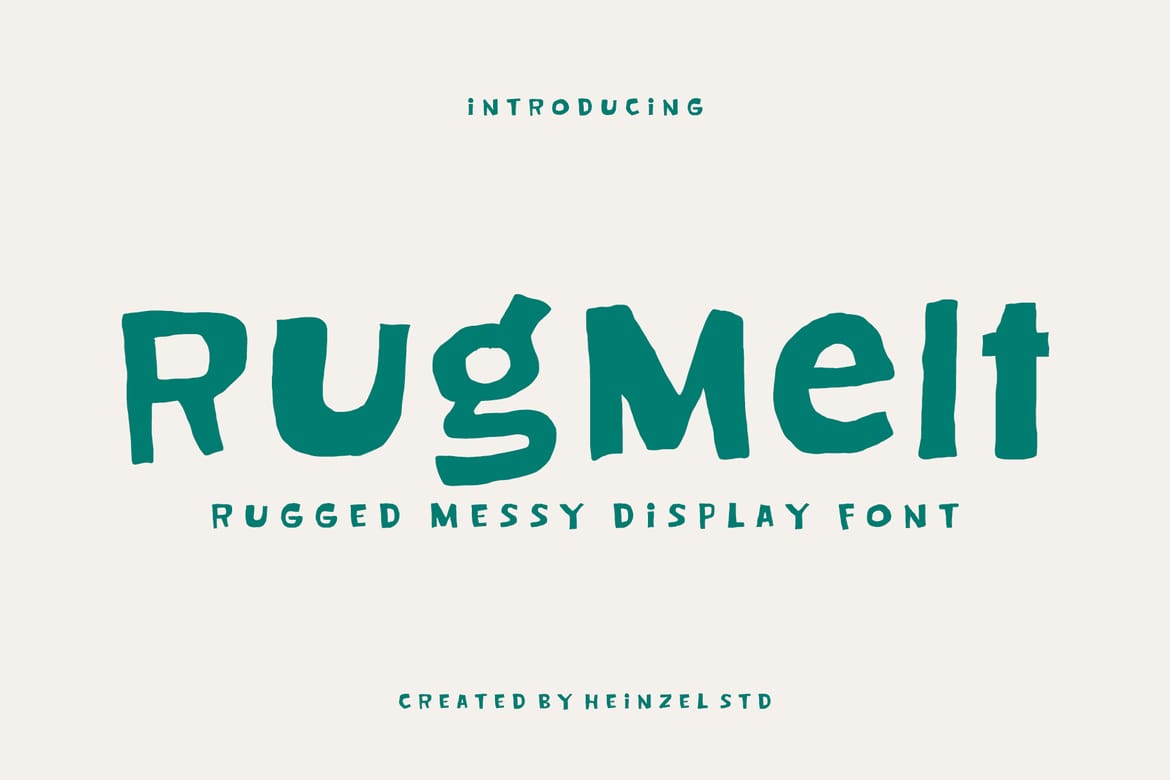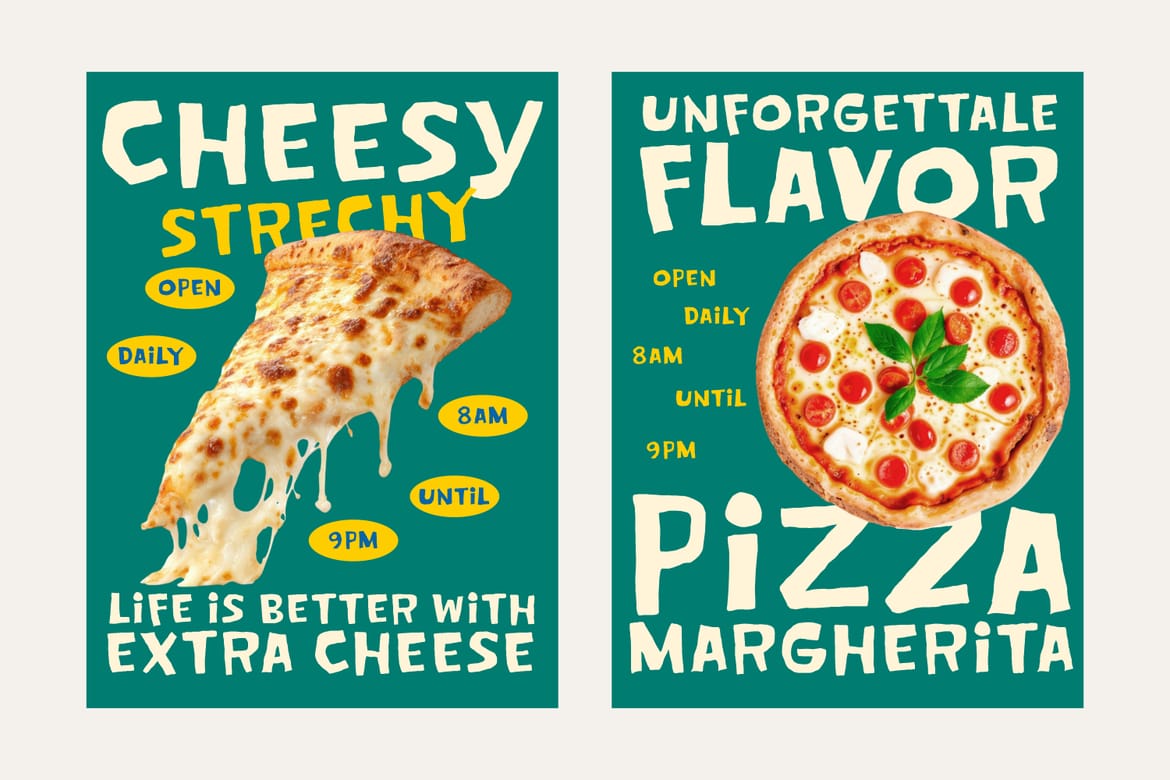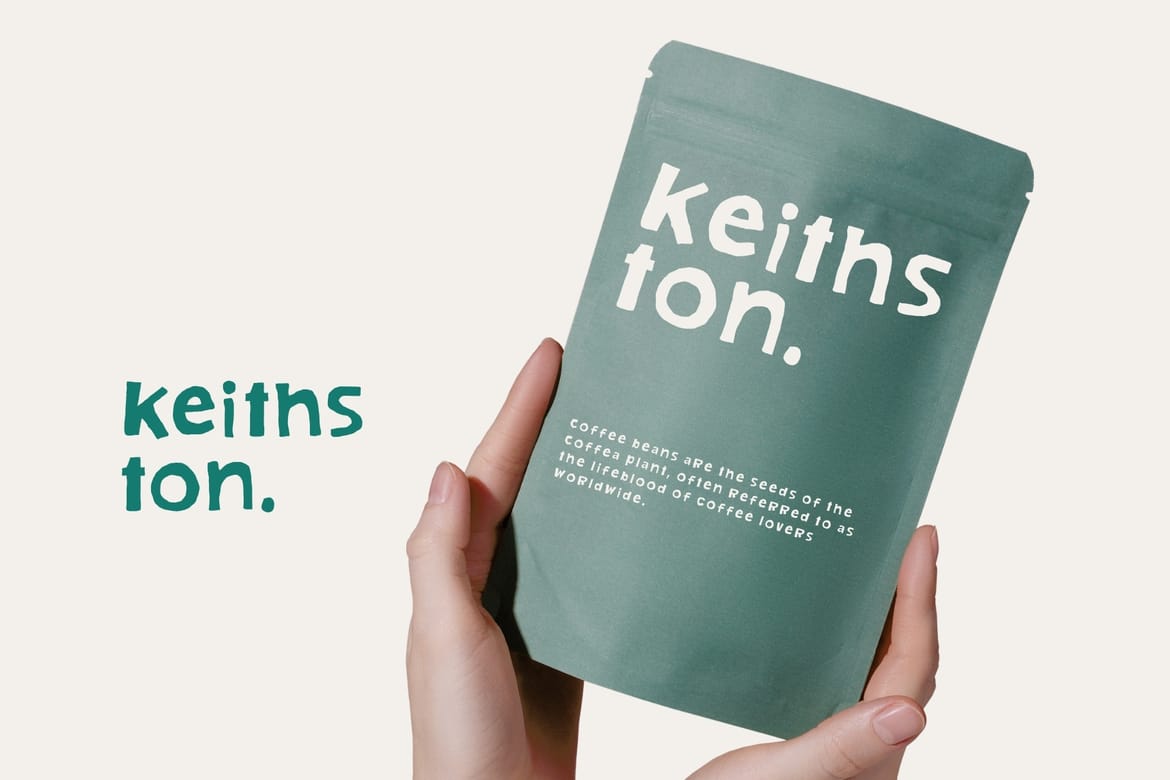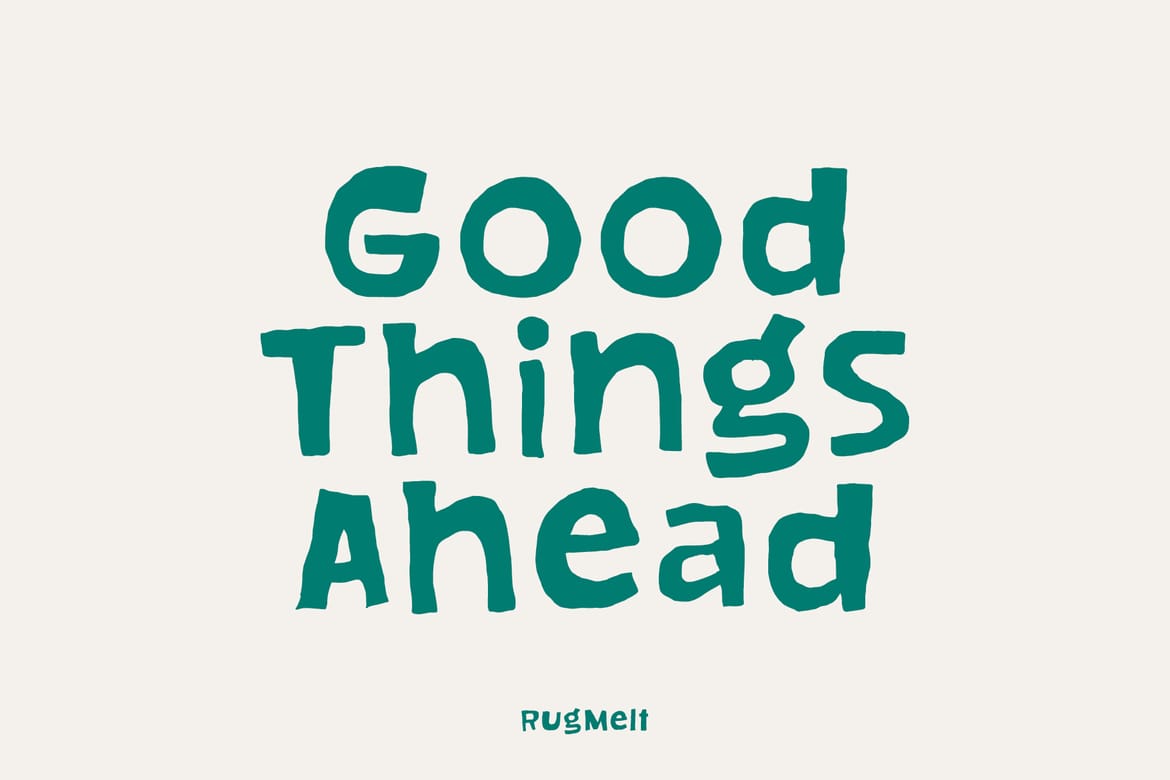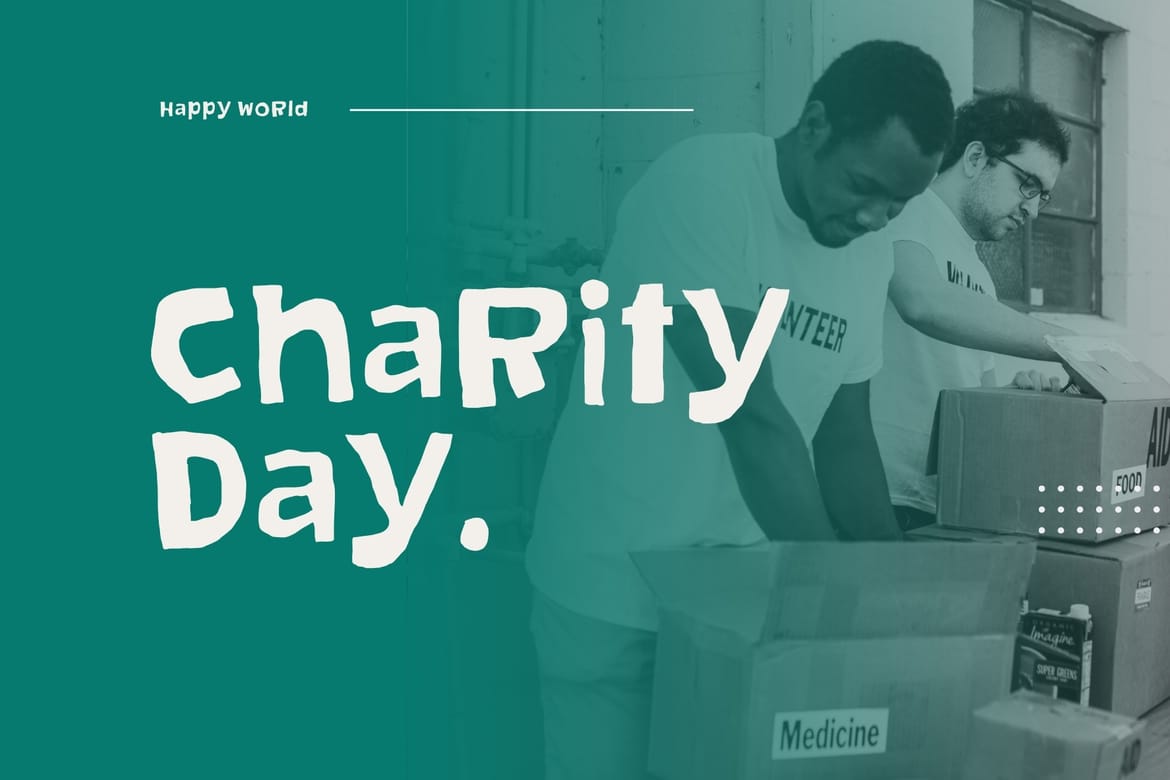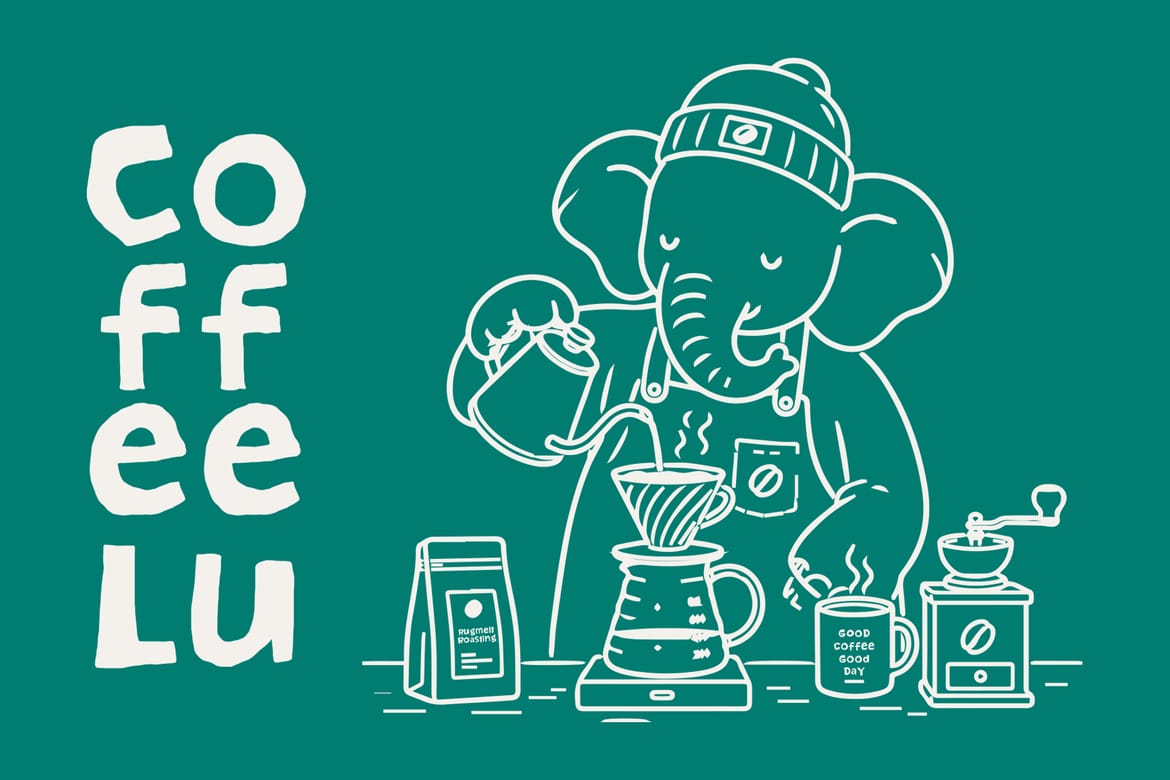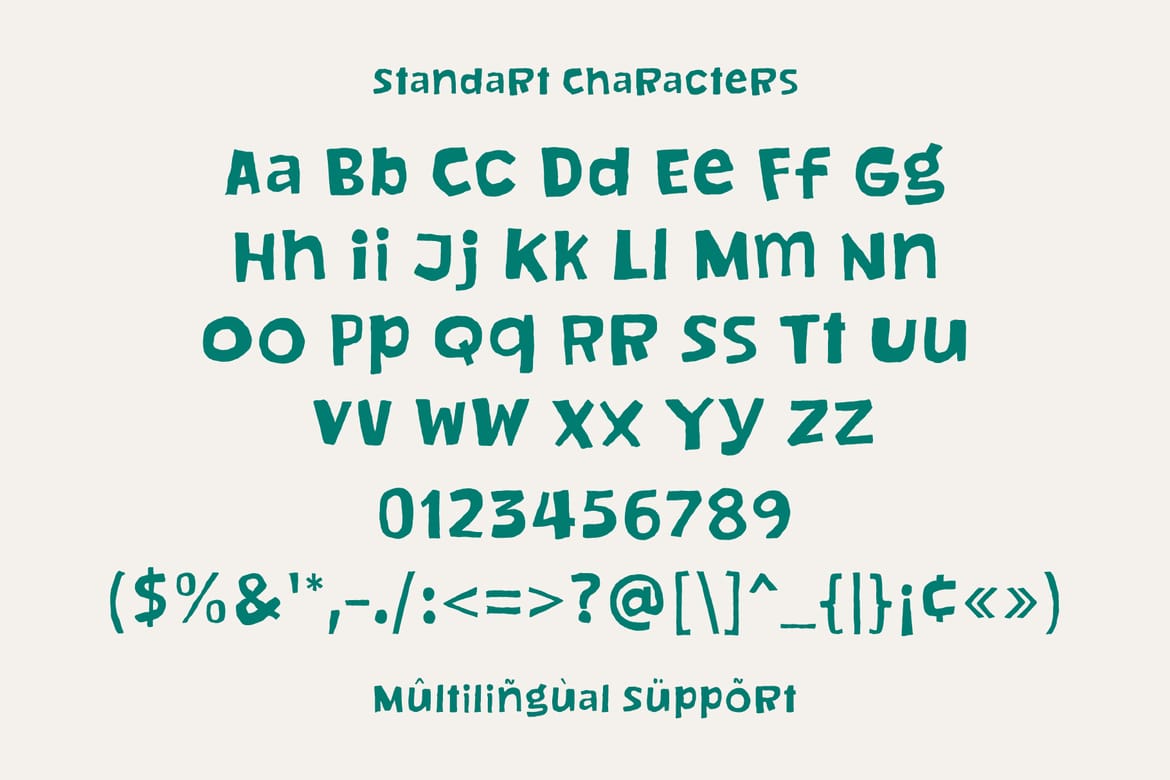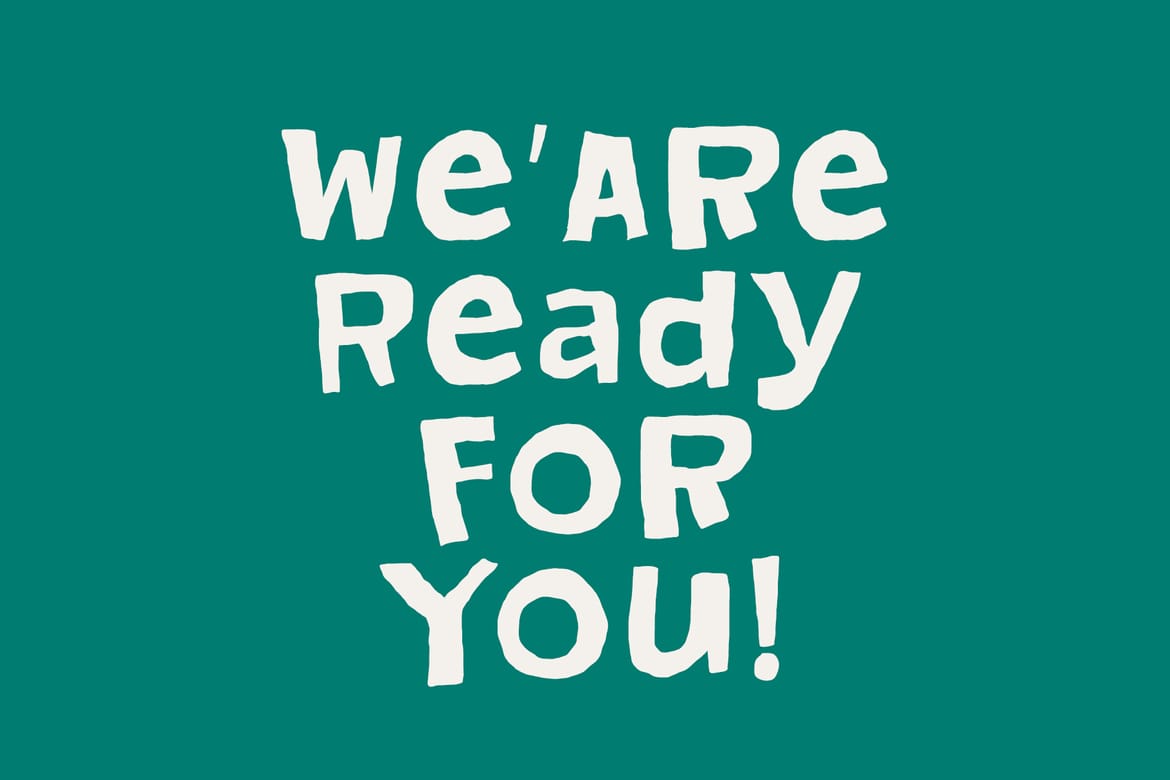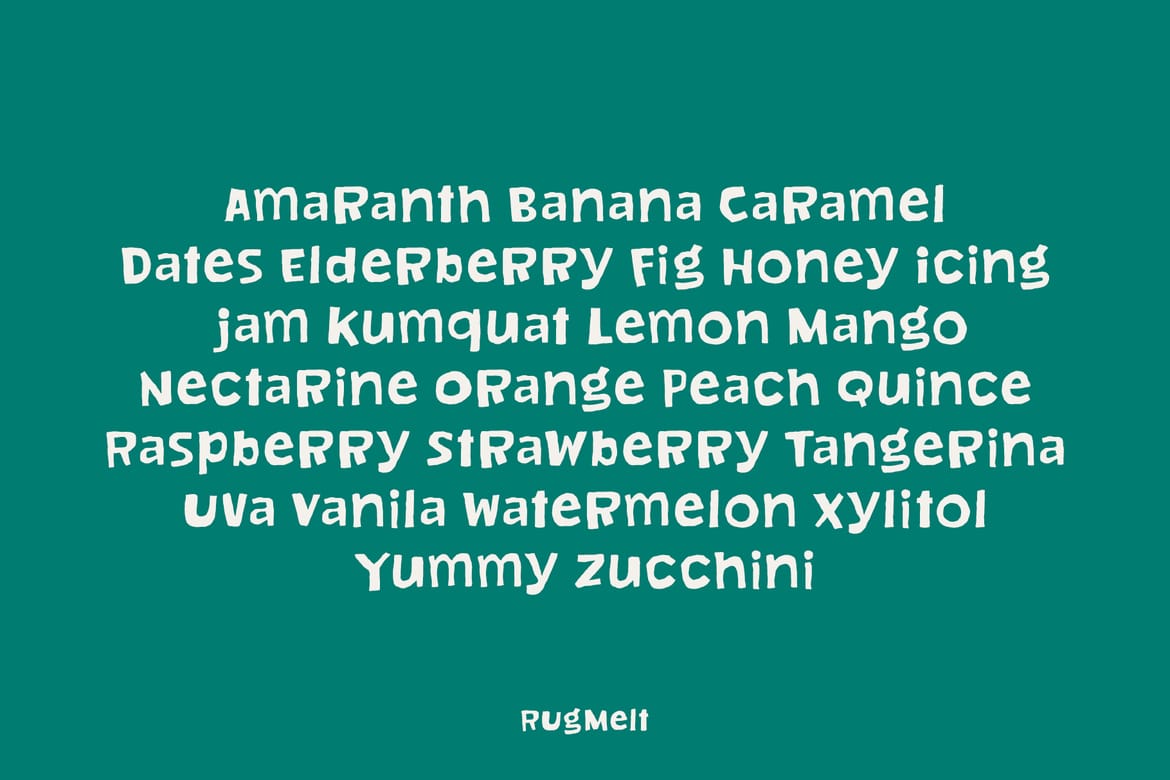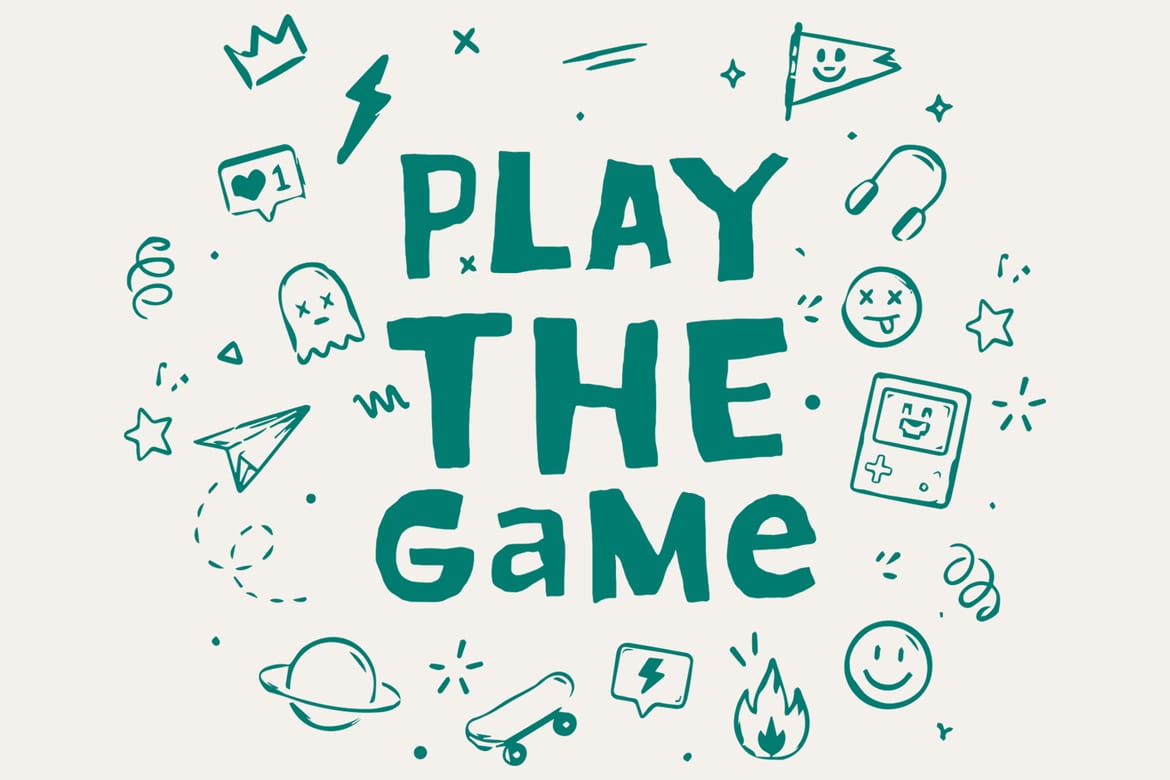
Rugmelt – Rugged Messy Display Font
Rugmelt is a bold rugged display font with a messy handcrafted style designed to bring raw energy and playful character into your creative projects. Inspired by hand-painted lettering and imperfect organic shapes, this font delivers a strong visual impact with its chunky forms, uneven edges, and artistic personality. Perfect for posters, streetwear branding, packaging, album covers, logos, social media graphics, children’s designs, and bold editorial layouts, Rugmelt creates an expressive and eye-catching look instantly.